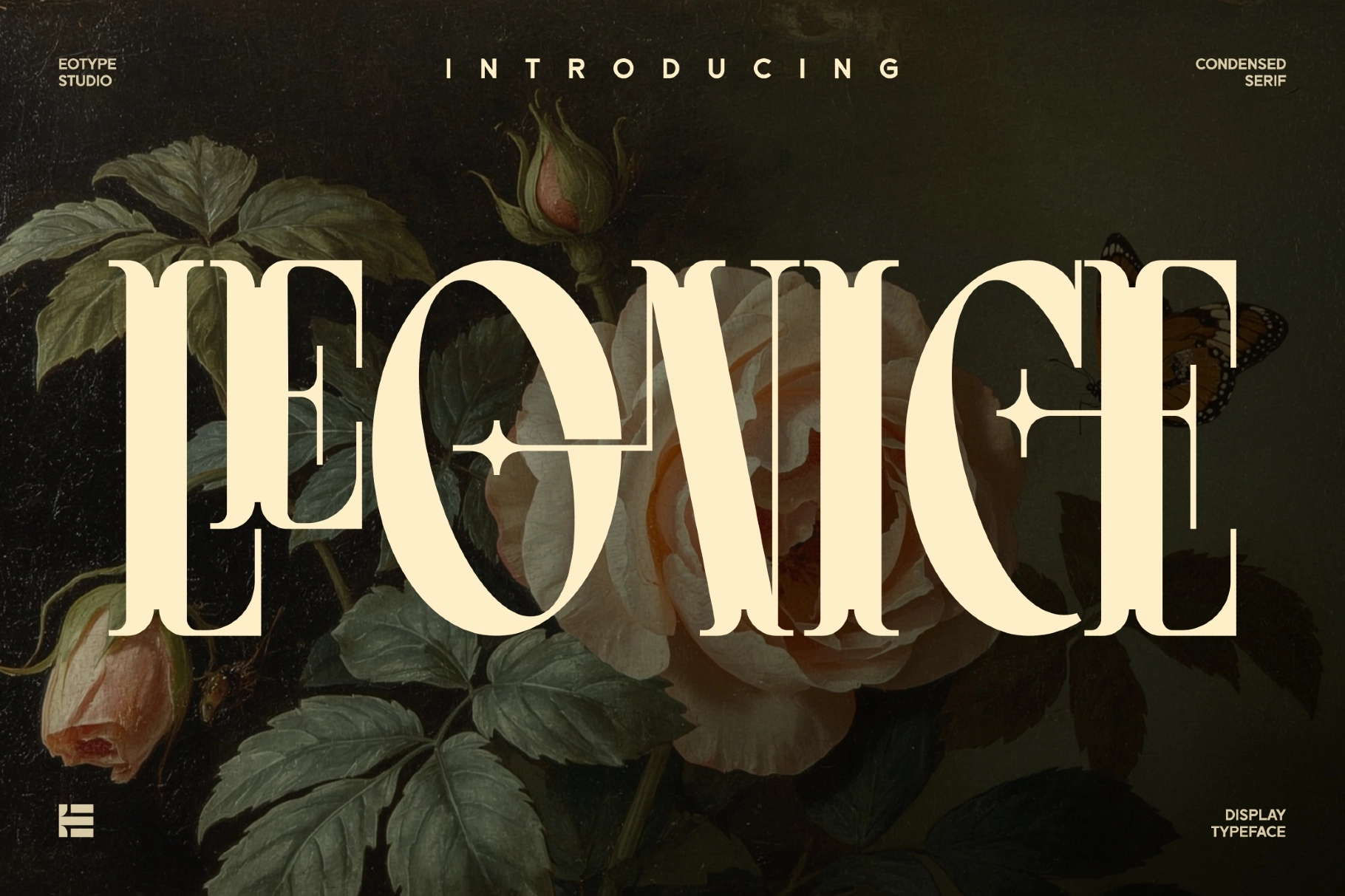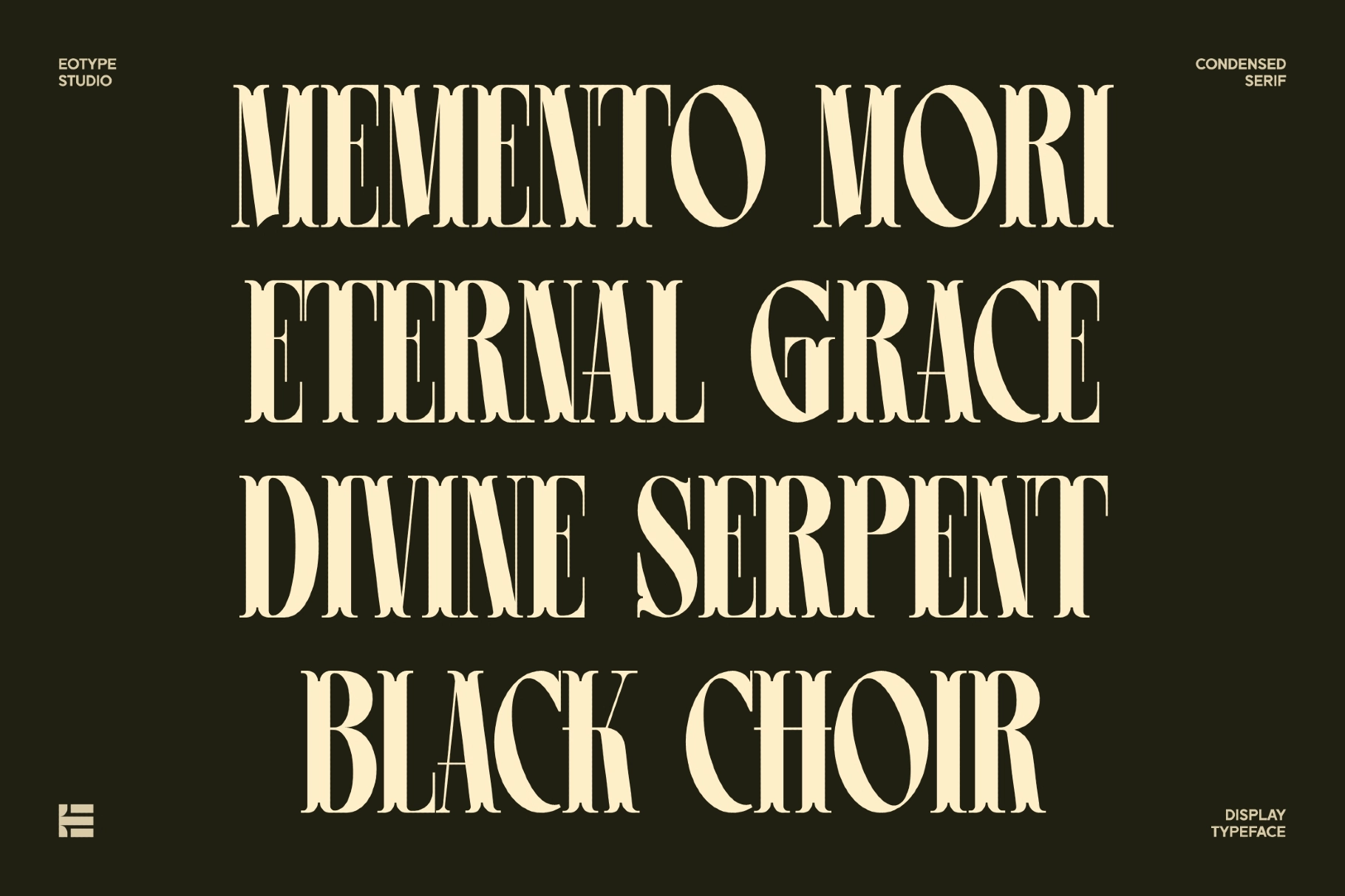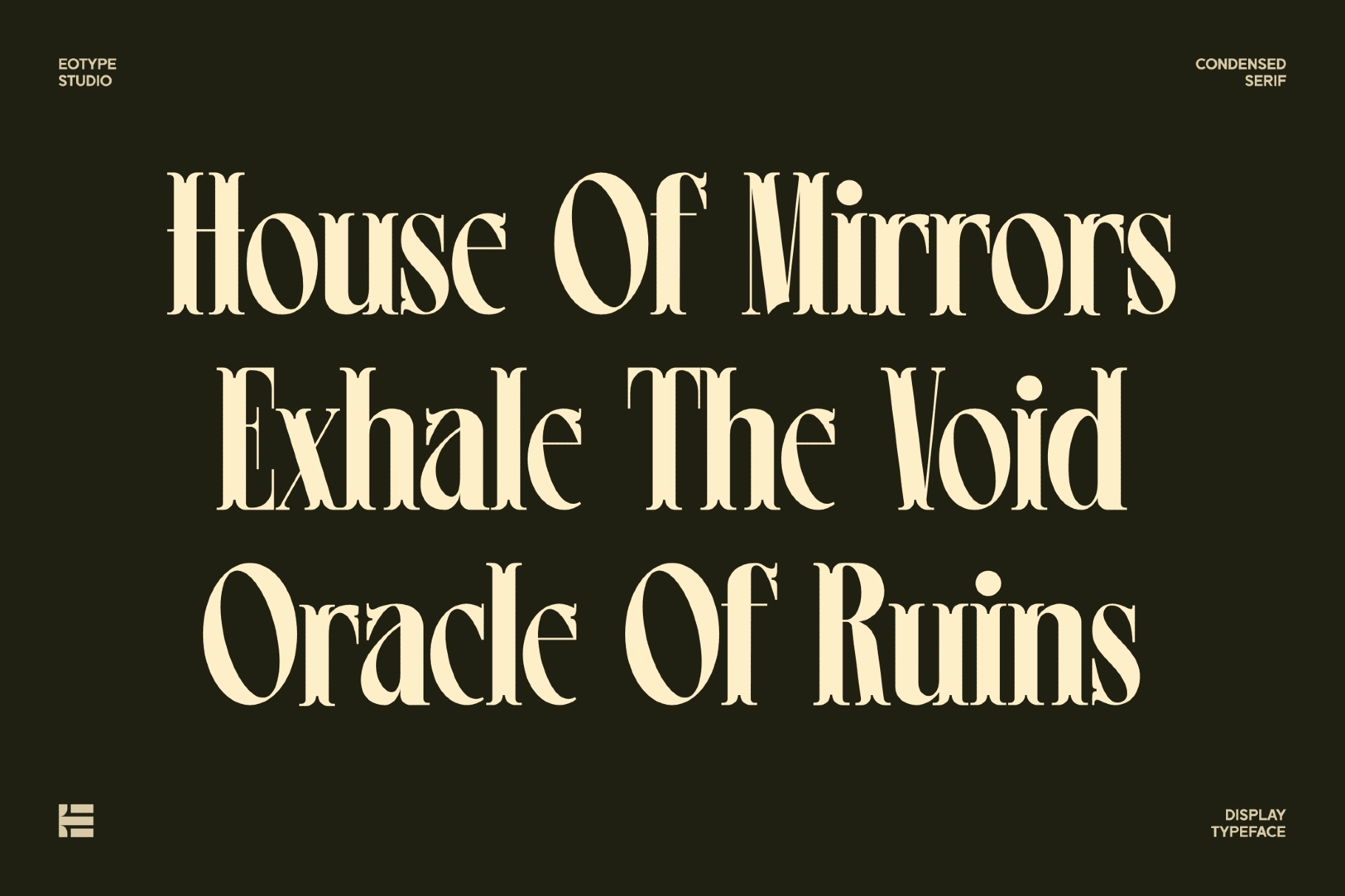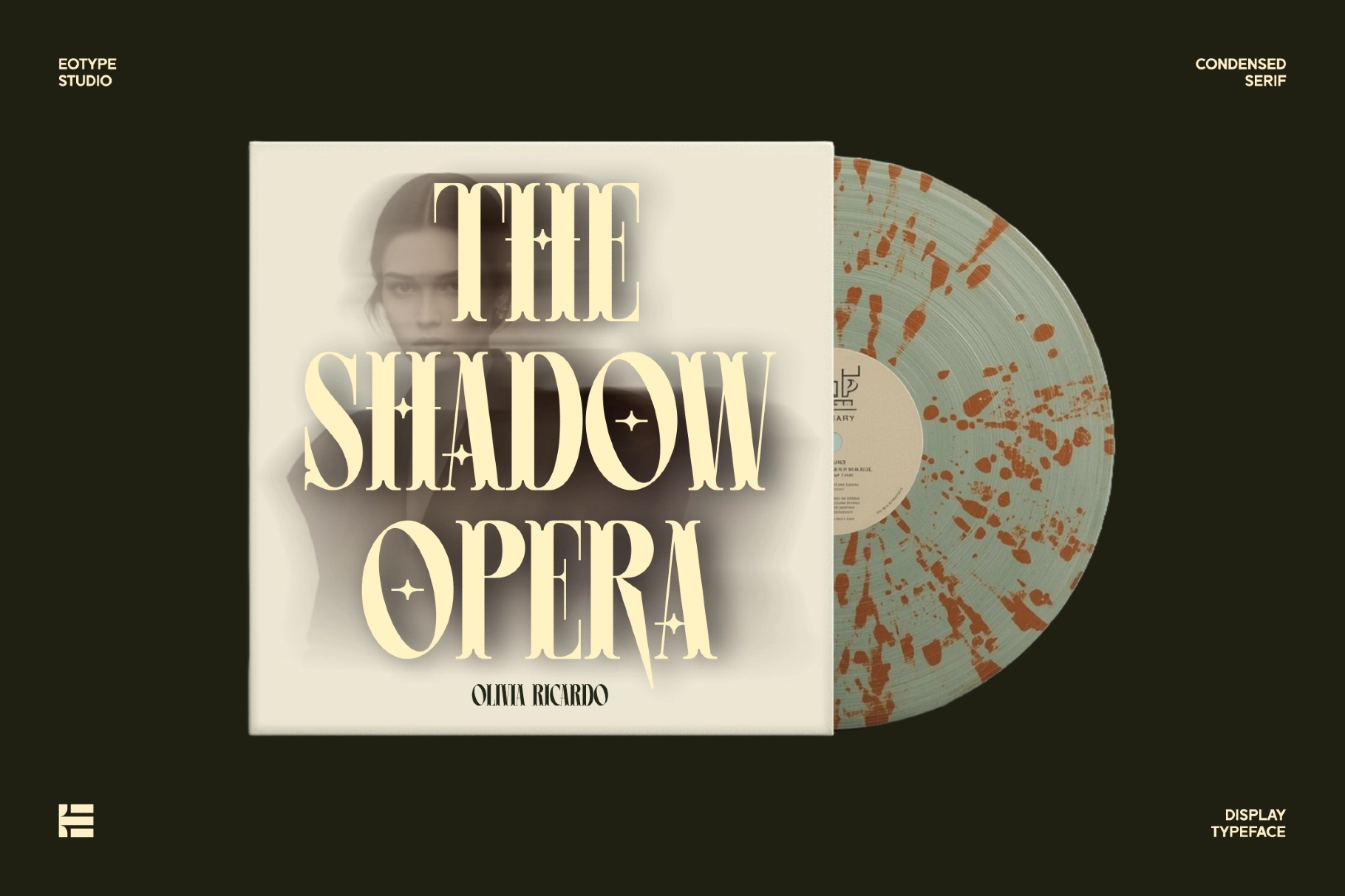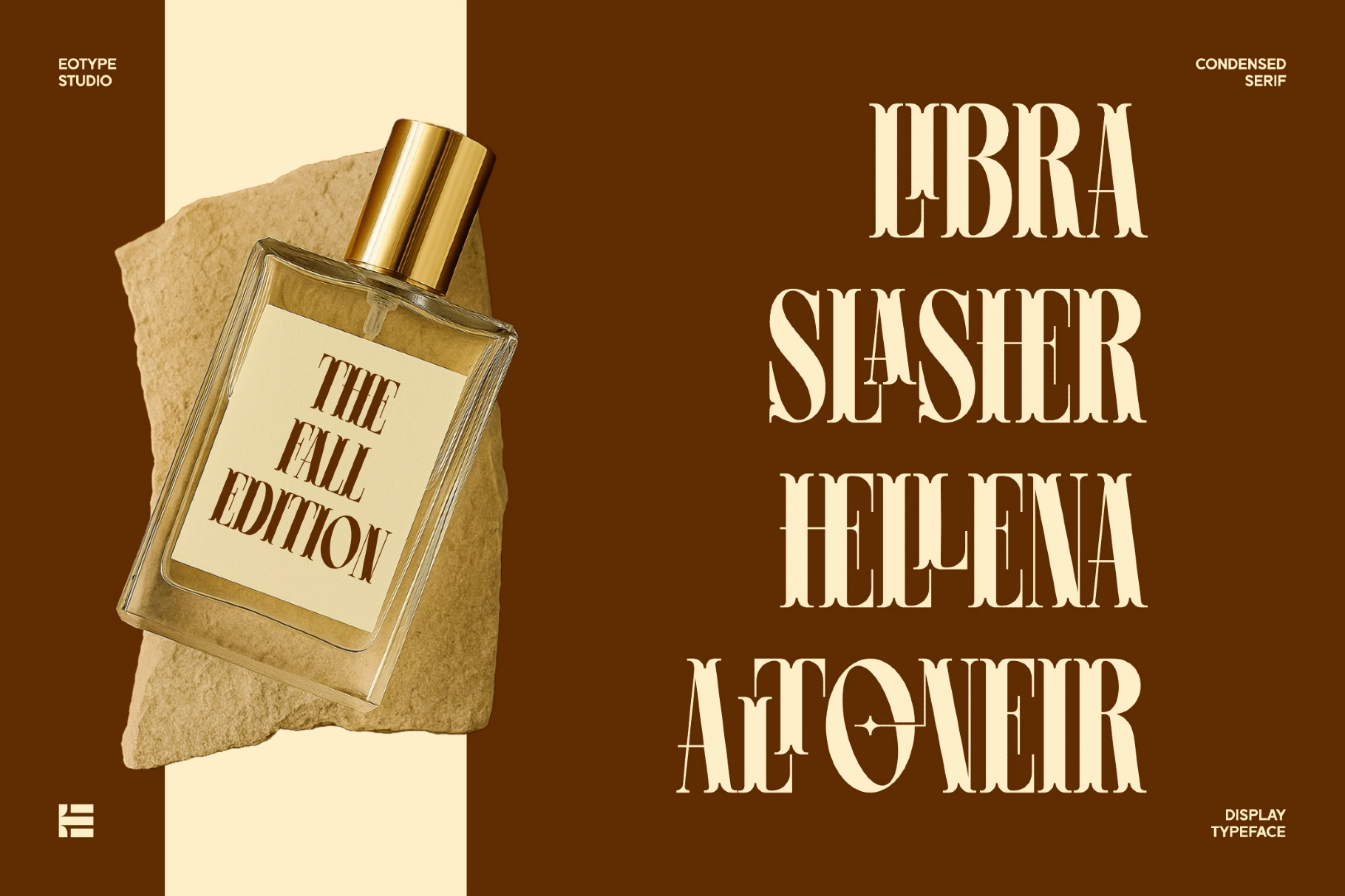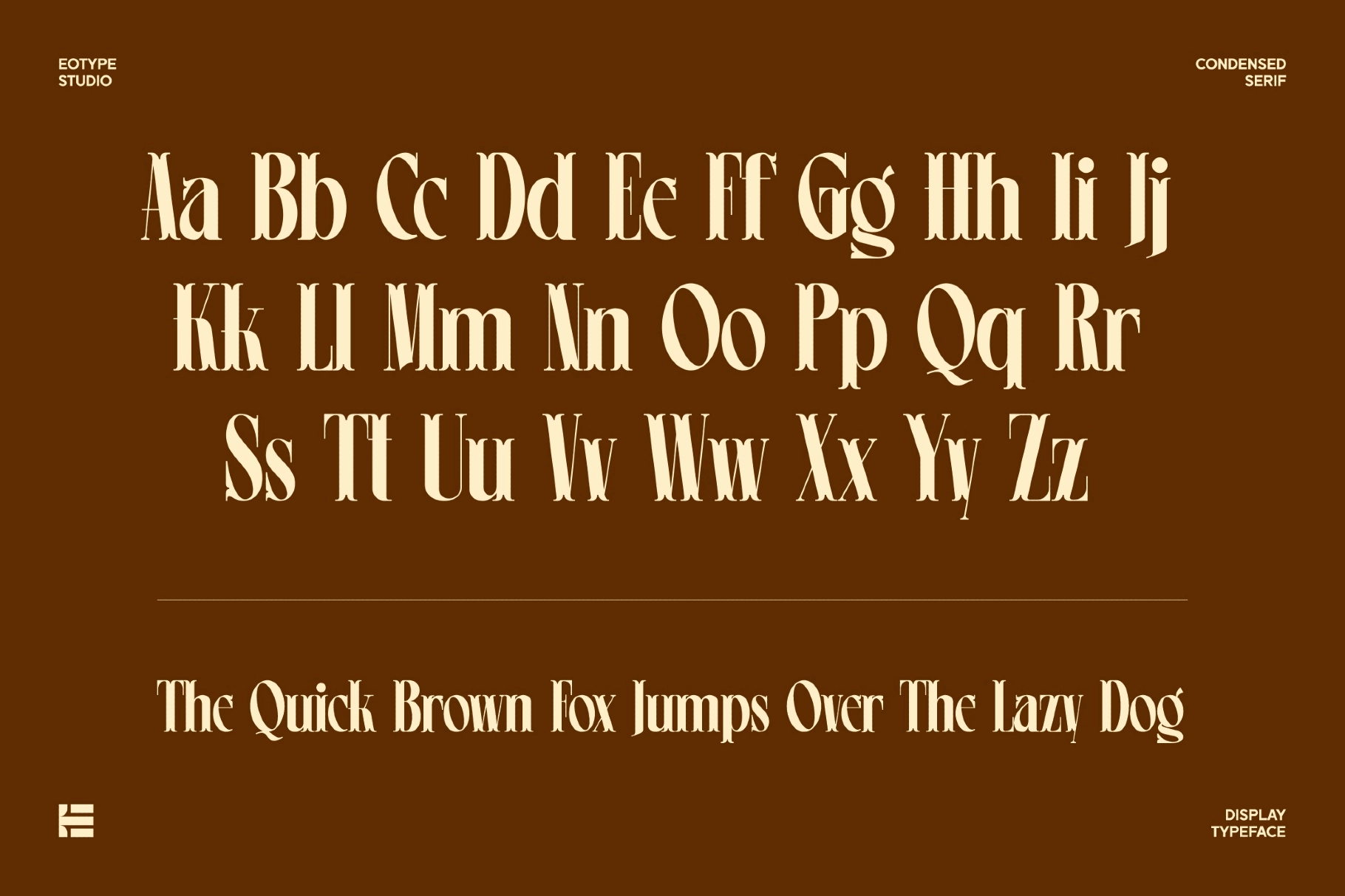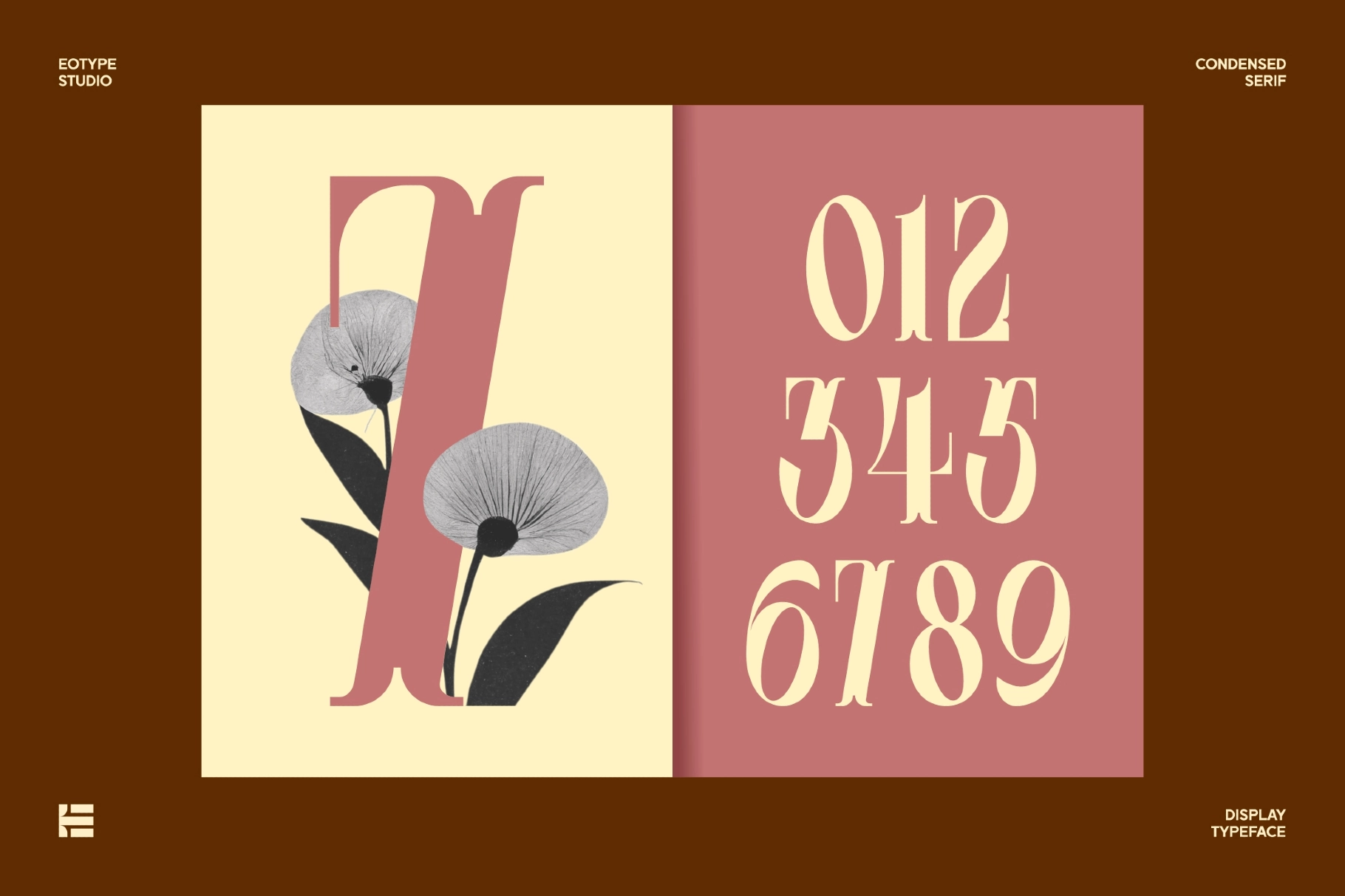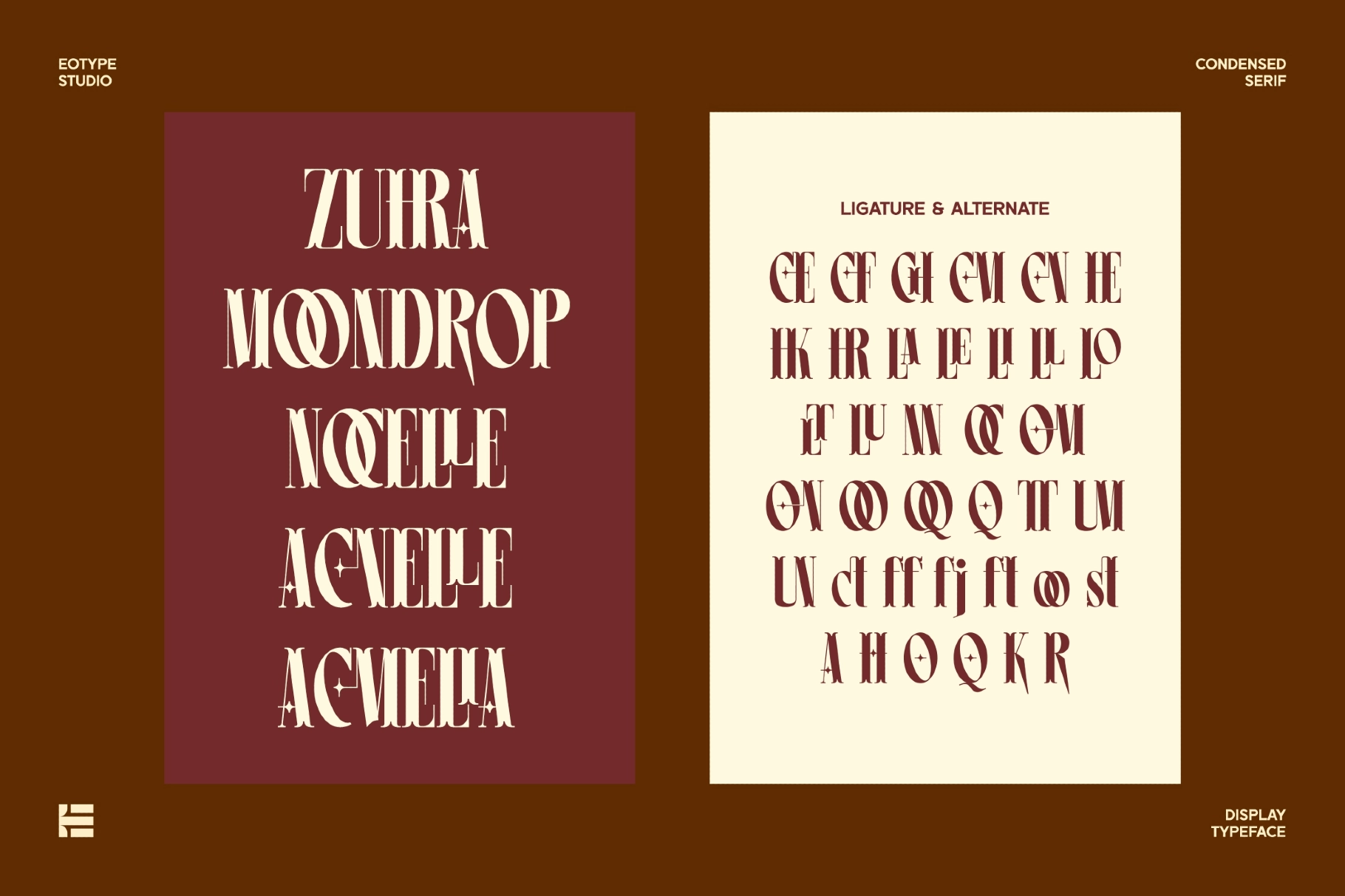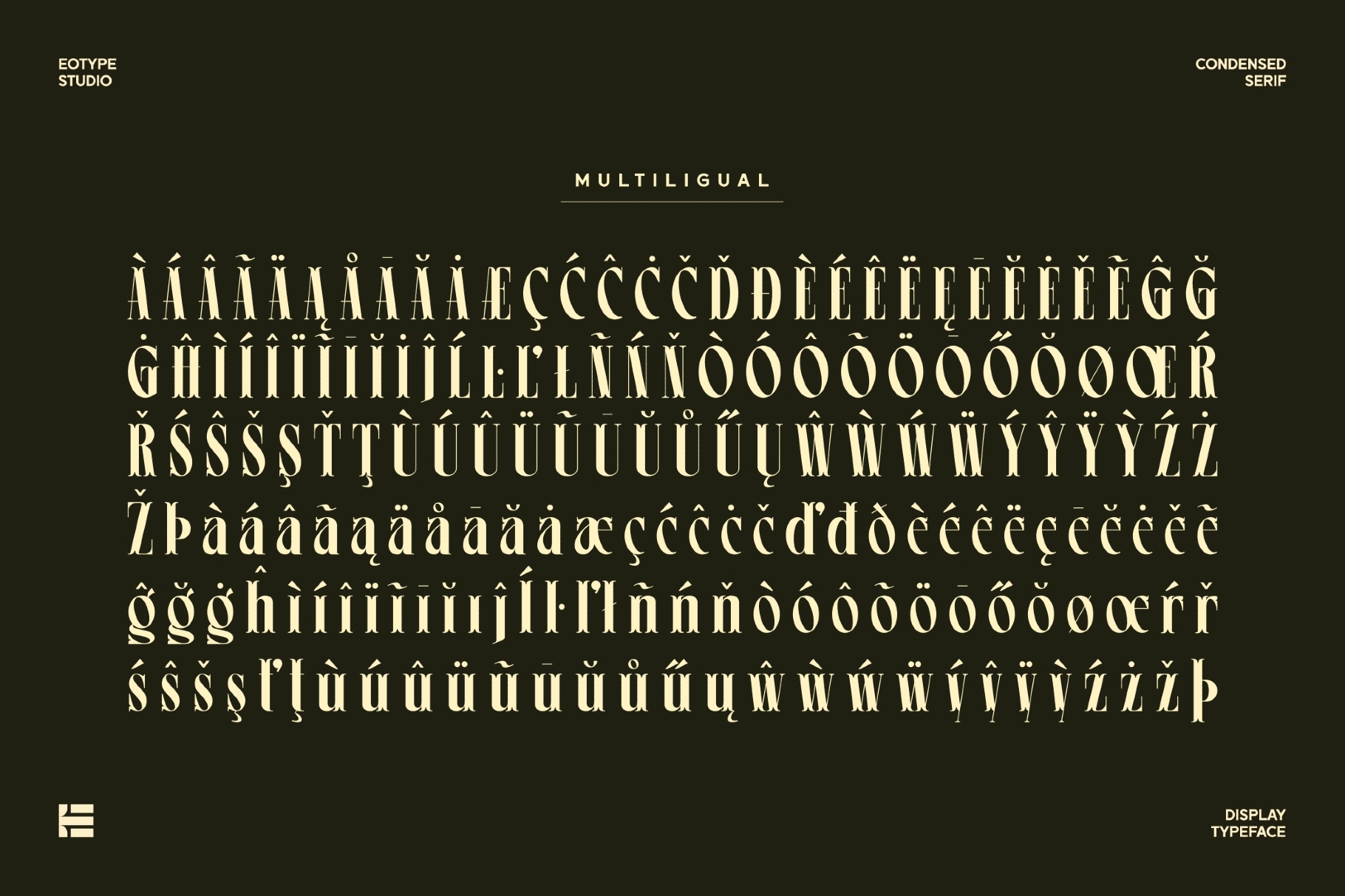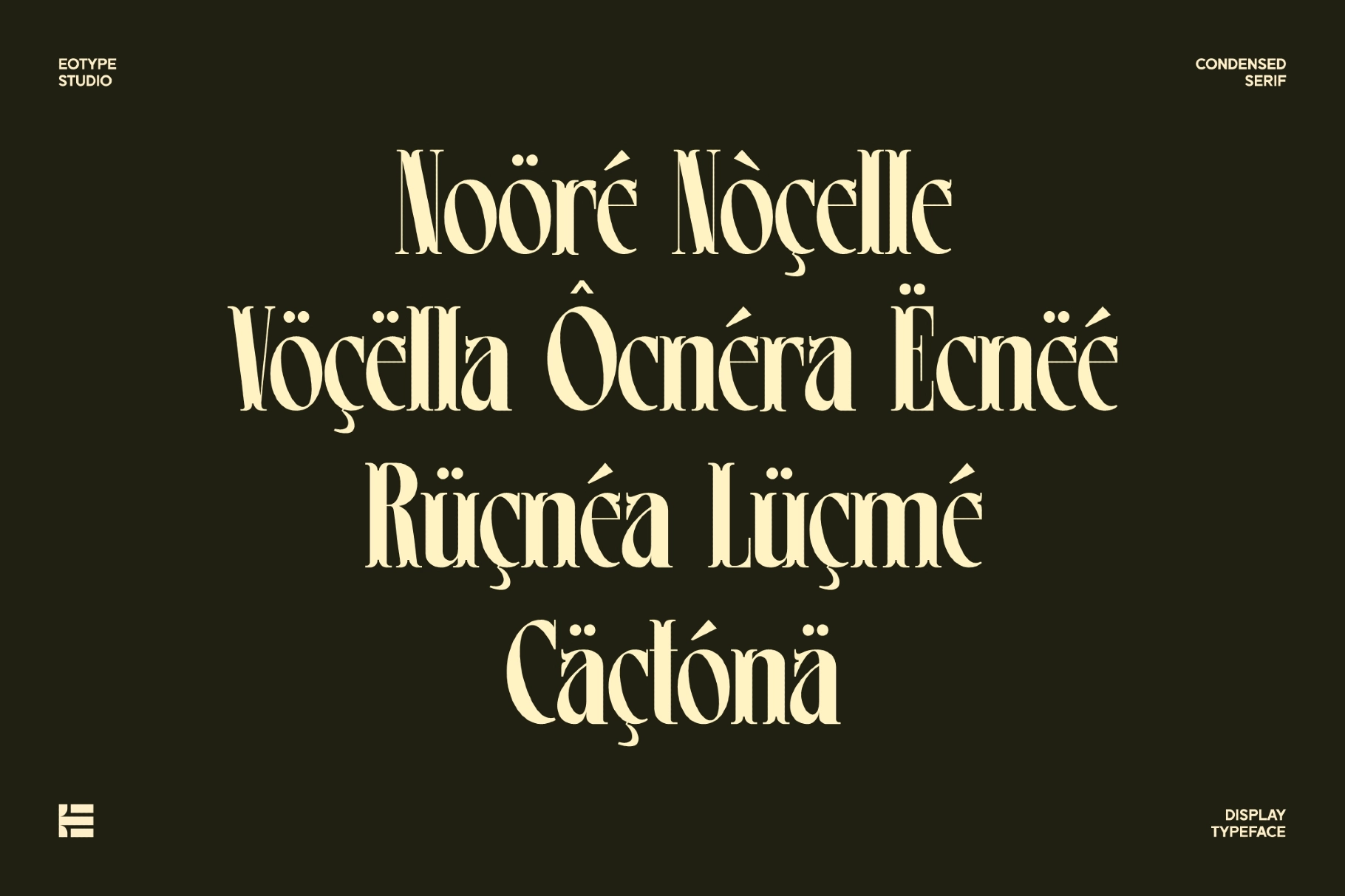
Leonice - Elegant Condensed Serif Font
Leonice
Leonice is a high-contrast condensed serif font built on tall, narrow proportions, sharp hairline transitions, and dagger-like serifs that taper to a point. Star-shaped dots break the strict grid over the i and j, and 30 discretionary ligatures pull common letter pairs into single decorative marks.
Leonice holds its drama at large sizes, where the height and contrast can carry a headline on its own. Use it for haute couture branding, editorial mastheads, cinematic titles, luxury packaging, wedding stationery, and gallery and exhibition signage.
- 30 discretionary ligatures;